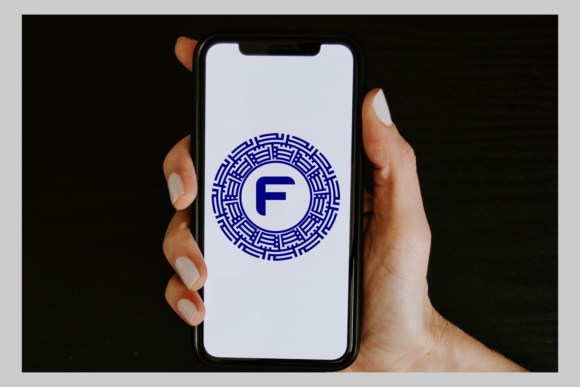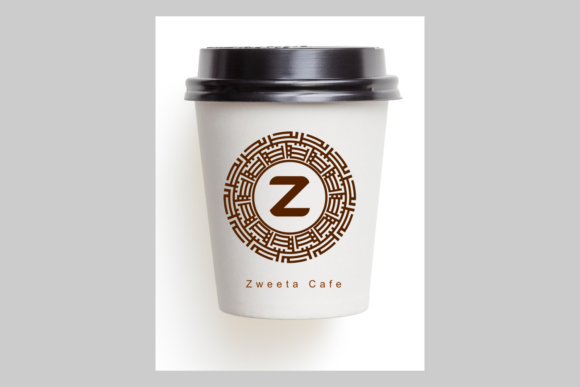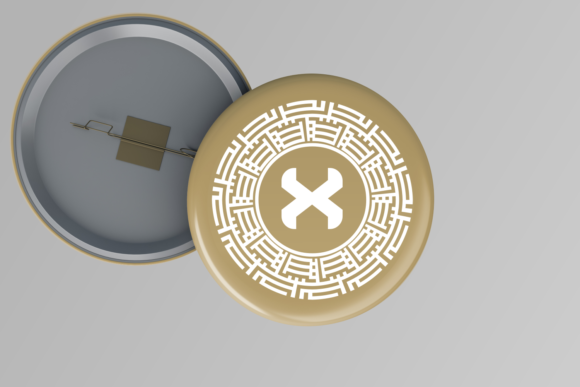
Introduction to Monogram Digitech Font
Have you ever stared at a blank page, feeling the pressure to create something truly special for a loved one? Maybe it’s a wedding invitation, a heartfelt love letter, or a custom design for a cherished friend. Whatever the project, you know that the right font can make all the difference. And that’s where the stunning Monogram Digitech Font comes in – a highly detailed and beautiful decorative font that’s sure to elevate any creative project.
As a designer, you understand the importance of having a high-quality design resource at your fingertips. With the Monogram Digitech Font, you’ll have access to a versatile and elegant font that’s perfect for a wide range of applications, from free download to commercial use. And with its transparent background, you can easily overlay it on any design element, creating a seamless and sophisticated look.
Key Features of Monogram Digitech Font
- The Monogram Digitech Font is a high-quality design resource, ideal for creative projects that require a unique and sophisticated look.
- This font features a transparent background, allowing for easy customization and seamless integration with various design elements.
- The font is designed with a high resolution of 300 DPI, making it perfect for use in both print and digital applications.
- One of the unique characteristics of Monogram Digitech Font is its versatility, allowing designers to use it for a variety of creative projects, from branding and logos to typography and graphics.
- The font is available in multiple sizes, making it easy to scale and customize to fit the needs of your specific design project.
Honest Review: Monogram Digitech Font
I recently stumbled upon the Monogram Digitech Font, and I must say it’s been a game-changer for my creative projects. As a designer, I’m always on the lookout for high-quality design resources that can elevate my work and make it stand out. The Monogram Digitech Font is one such resource that has exceeded my expectations.
Here are some of the things that work well with this font: ✨
- Unique and modern design: The Monogram Digitech Font has a distinct look that sets it apart from other fonts in its category.
- High-quality: The font is crisp and clear, making it perfect for digital and print projects.
- Transparent background: The font has a transparent background, making it easy to use with any background image or color.
However, there are a few limitations to consider: ⚠️
- Limited customization options: While the font is high-quality, it doesn’t offer a lot of customization options, which may be a drawback for some designers.
- Not suitable for all projects: The font’s modern design may not be suitable for more traditional or formal projects.
Overall, I’m impressed with the Monogram Digitech Font and would highly recommend it to fellow designers. It’s a great addition to any design resource library and is sure to elevate your creative projects.
Tips for Getting the Most Out of Monogram Digitech Font
For the best results, use the Monogram Digitech Font on a transparent background to create a clean and modern design. Experiment with different font sizes and styles to add visual interest to your creative project. This design resource is perfect for anyone looking to create high-quality designs with ease.
Monogram Digitech Font is ideal for a variety of creative projects, including logos, business cards, and brochures. Its high-quality design and transparent background make it a great resource for designers looking to create professional-looking materials.